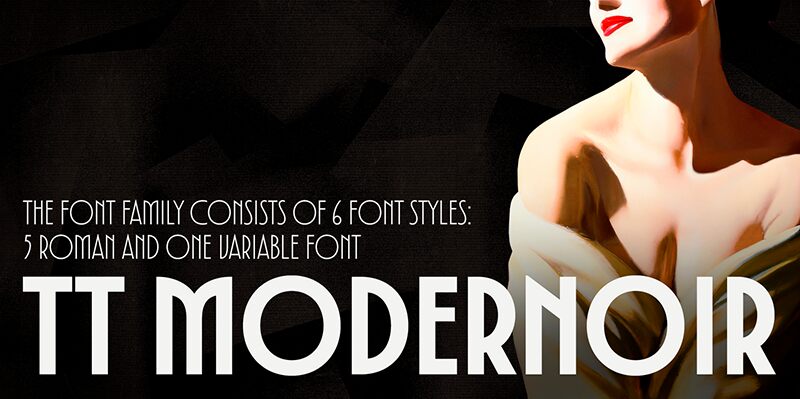
TT Modernoir font
TT Modernoir
Introducing our new, super expressive TT Modernoir!
TT Modernoir is a display sans serif font characterized by dynamic proportions. Fluid lines and delicate Art Nouveau forms blend seamlessly with the rhythmic flow and improvisational freedom of jazz. Inspired by French typography of the 20th century and noir film aesthetics, this typeface reflects its vibrant name.
A key feature of TT Modernoir is the significant proportion difference between square and oval characters: the squares are extremely narrow, while the ovals are very wide. The curved letter legs add an exquisite touch, and the dynamic swirls create a sense of musical rhythm and movement.
While the typeface does not include lowercase characters, it features small caps to emphasize prepositions, short words, and other text elements. A stylistic set with narrow proportions for the oval characters can be utilized for more balanced typesetting. Conversely, an underlined glyph set enhances expressiveness where needed. Additionally, the curly set incorporates swirls in the letters S and Z and curved legs in R and Я.
A small icon set can elevate your design, offering distinctive black cats, heart-tipped arrows, and musical notes. Useful OpenType features and a variable font with weight variation allow the typeface to adapt to a wide variety of tasks.
TT Modernoir excels in large point sizes, making it particularly striking on posters, signage, packaging, book and magazine covers, as well as in branding and logos.
Bring a touch of elegance and romance to your design with TT Modernoir!